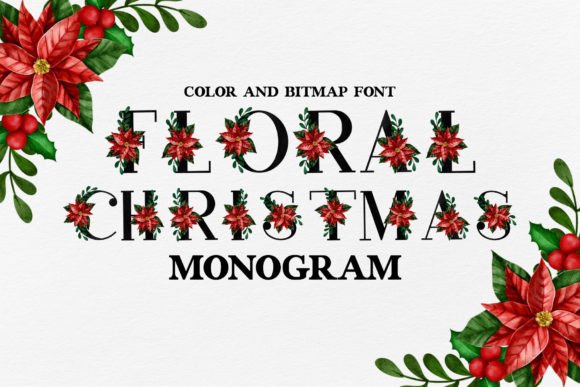
Introducing Floral Christmas Font, a vibrant and captivating font family that will infuse your designs with a touch of festive cheer. Immerse yourself in the enchanting world of watercolor artistry, where each letter is a brushstroke of creativity, meticulously crafted to evoke the spirit of Christmas.
With Floral Christmas Font, you'll have a treasure trove of colorful characters at your fingertips, ready to adorn your invitations, stationery, social media posts, and greeting cards with a unique and eye-catching flair. Let your imagination run wild as you create stunning designs that capture the magic of the Christmas season.
Unleash your inner artist and explore the endless possibilities of Floral Christmas Font. Its vibrant hues and playful style will add a touch of whimsy to any project, transforming your words into works of art. Whether you're a seasoned designer or just starting out, this font family will inspire you to create captivating visuals that leave a lasting impression.